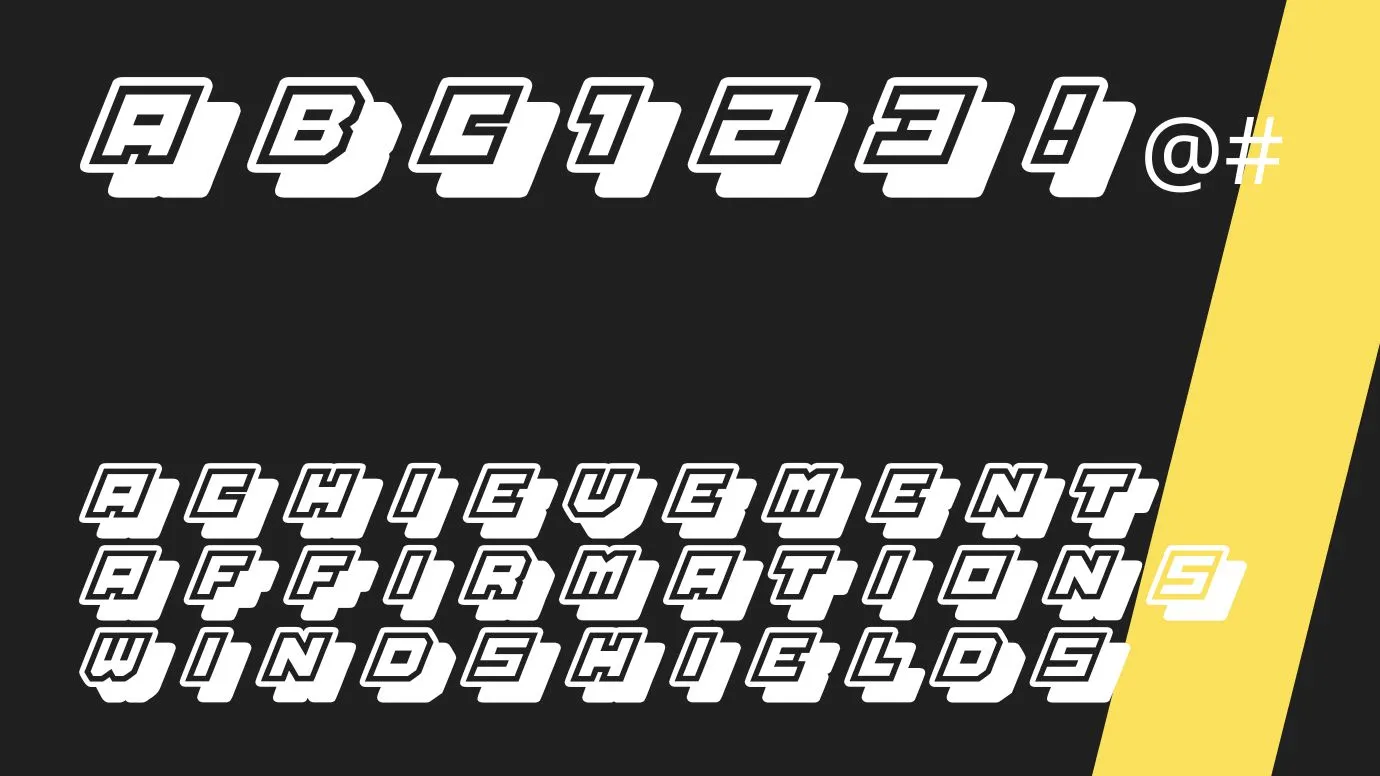
Platinum Sign Font is a high-quality techno font designed by Imagex. It will add a touch of creativity in highlighting your design elements.
The typeface features rounded corners and strong geometric shapes and is an ideal choice for anyone who wants to add science and technology symbols to your project as it is a techno-typeface.
As the name suggests, it is suited for headlines, logos, and other displays that need a modern and cutting-edge appearance for your work. You can use the typeface in a number of other projects like homeware design and much more. This is one of the best typefaces for advertisement.
The unique typeface with amazing features comes in regular and italic weights. The font has a complete set of characters including uppercase and lowercase letters, numerals, and punctuation. The typeface is somewhat identical to quantum font and neuropolitical font.
Creator of Platinum Sign Font
The typeface with a techno texture has been created by one of the most famous designers around the world Imagex.
Platinum Sign Font Family Includes
- Platinum Sign Regular
- Platinum Sign Italic
View of Platinum Sign Font
Platinum Sign Font Details
| Name | Platinum Sign Font |
| Style | Techno |
| Designer | Imagex |
What type of typeface is the Platinum Sign?
The typeface is a group member of the Techno family. The typeface features rounded corners and strong geometric shapes.
Who created the Platinum Sign typeface?